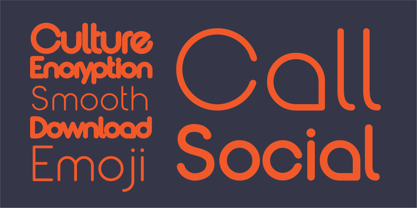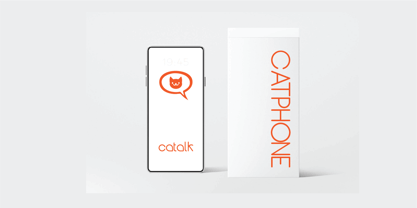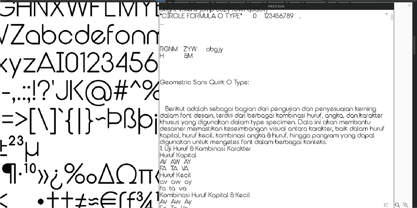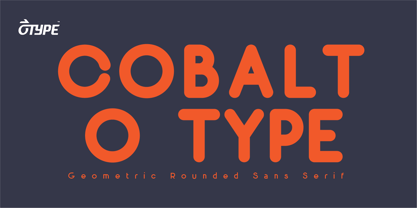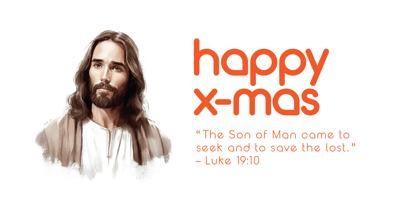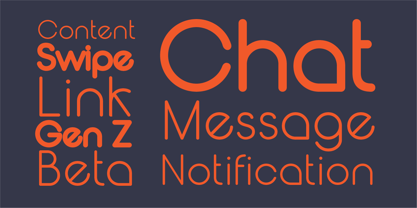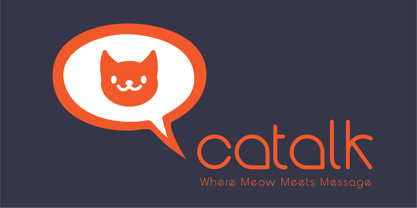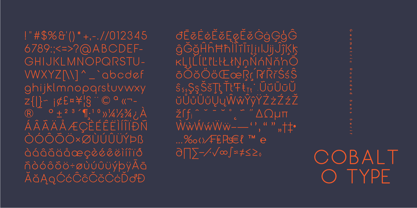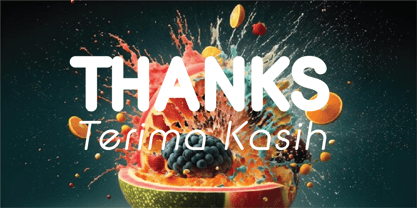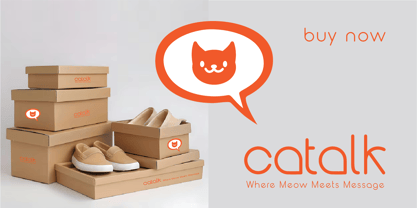
Cobalt O Type
by O Type Foundry
The Cobalt O Type Font Family was designed by Galang Persada and published by O Type Foundry. Cobalt O Type contains 1 styles. More about this family
"Clear, confident, and full of character-Cobalt O Type is designed for brands and designers who need to speak with confidence."
Cobalt O Type is a modern sans serif typeface that balances softness and firmness in one design breath. With rounded, clean, and consistent letter proportions, this typeface creates a trustworthy, contemporary, and professional impression. It is suitable for visual needs such as branding, editorial, creative posters, UI design, and corporate identities that require warm but structurally strong visual communication. The message of Cobalt O Type is about clarity, stability, and bold visual expression without leaving a humanistic touch. Its nuances are inspired by the urban spirit of today-cheerful, mature, and adaptable in various contexts.
About O Type Foundry
O Type Foundry is an independent type foundry based in Bandung, Indonesia, creating retail typefaces for designers, studios, and brands worldwide. Founded by Galang Persada, the foundry develops typefaces for visual identity, logo design, editorial design, packaging, posters, digital products, and cultural projects. Its library explores geometric sans serifs, contemporary grotesques, expressive display faces, and experimental lettering systems. O Type Foundry is driven by the belief that type is not only a visual asset, but a strategic voice for brands and creative work. Each font is crafted to balance personality, usability, and commercial relevance.